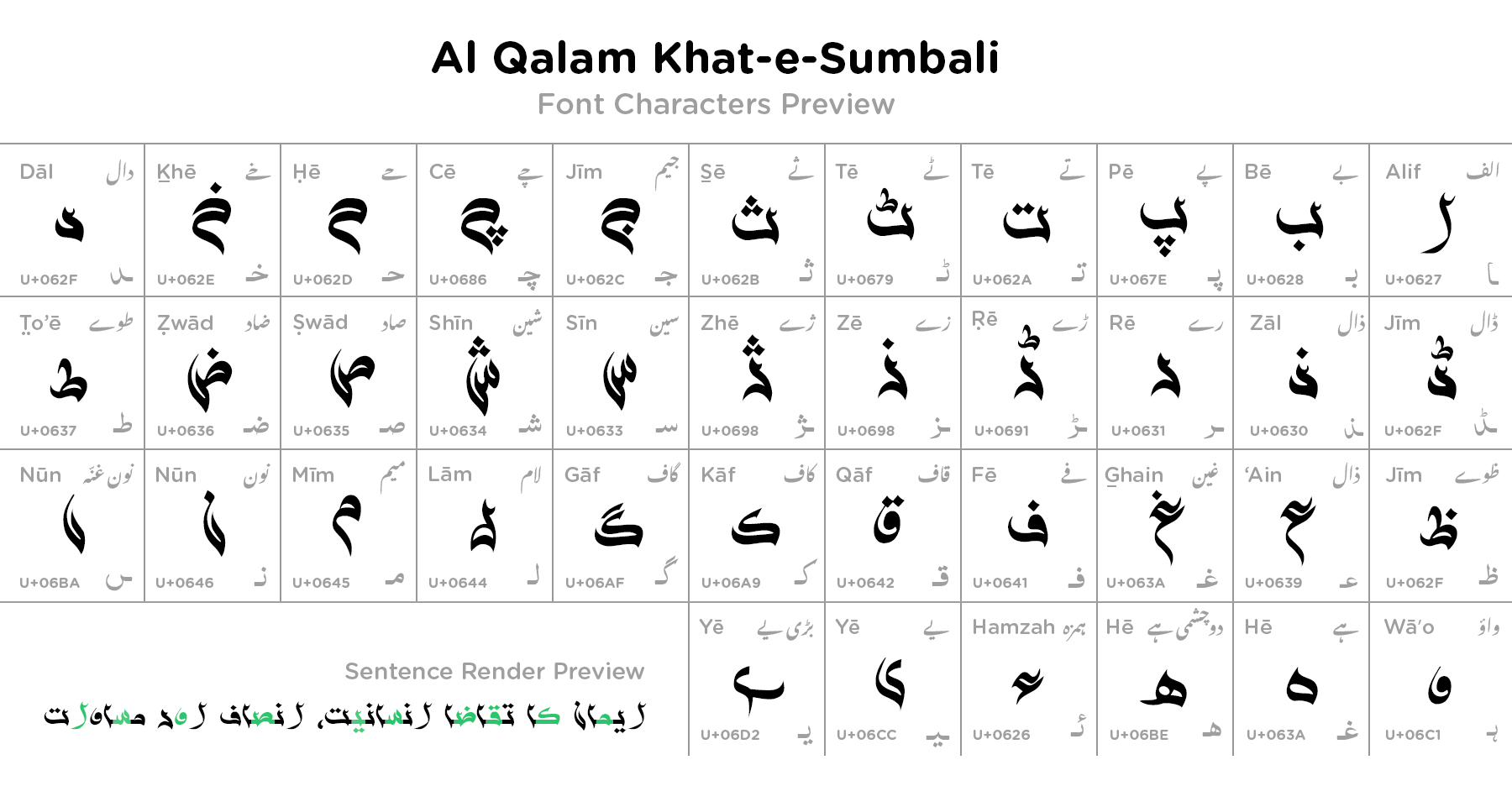
Al Qalam Khat-e-Sumbali was designed and developed by Pakistani calligraphers Attari Qadri and Muhammad Ishtiaq Ali Attari from Faisalabad. It is a bold and decorative Urdu font released in January 2016. Drawing inspiration from the Diwani script, it displays a modern yet sophisticated aesthetic. With 219 characters and 335 glyphs, it offers compatibility with Urdu, Arabic, Latin, and more, ensuring versatility in language usage. This font’s single weight emphasizes boldness and intricacy, making it best suited for short-text applications due to its low legibility on screens. Its dynamic thickness and contrasting strokes create a visually striking appearance, while its sharp corners and decorative elements add elegance. Al Qalam Khat-e-Sumbali monospaced and wide design enhances its calligraphic sophistication. Ideal for branding, advertising headers, book covers, and calligraphy projects, this font adds a touch of refinement to any design. However, its intricate details may pose challenges for legibility on screens, making it more suitable for decorative purposes only.